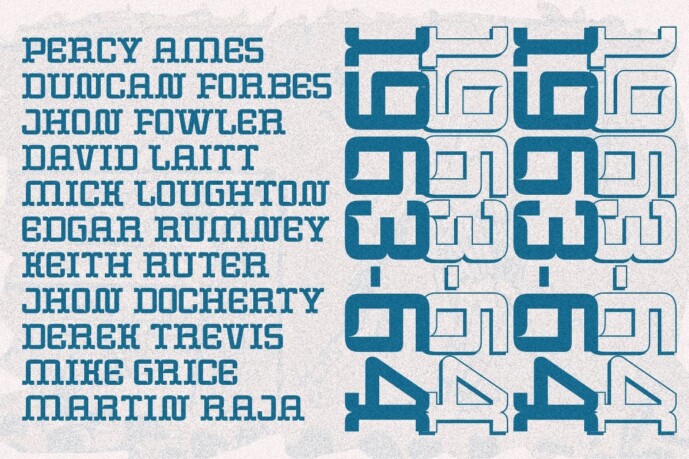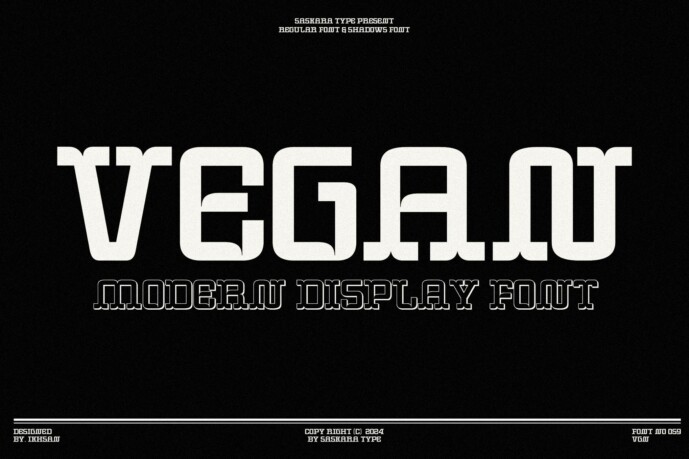
Vegan Display Font
Vegan Display Font is an elegant decorative Sanserif font with a modern touch that brings a powerful and dynamic touch. An ideal font for printing logos, labels, flags, football jersey letters, basketball letters, brochures, signs, craft brands, anything related to modern style, vintage style, etc.